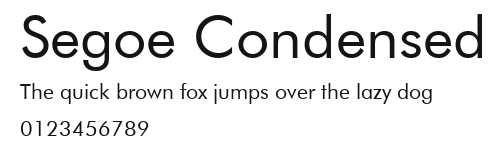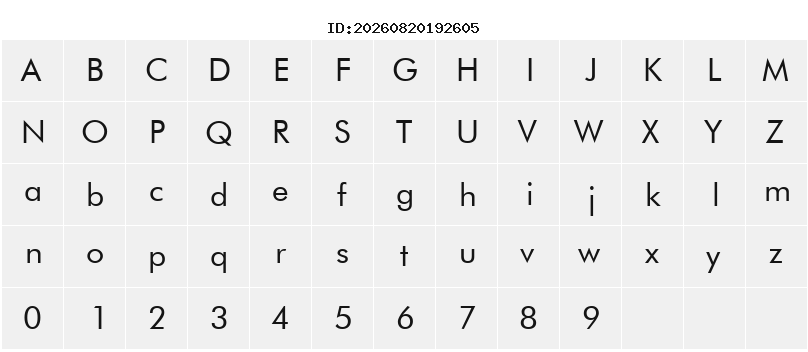
• Font Name: Segoe Condensed
• Font ID: Segoe Condensed Bold: From Futura Bk BT
• Full Font Name: Segoe Condensed Bold
Segoe Condensed.ttf is a modern, elegant sans-serif font designed for ultimate readability and visual harmony. Perfect for branding, headlines, web design, and print materials.